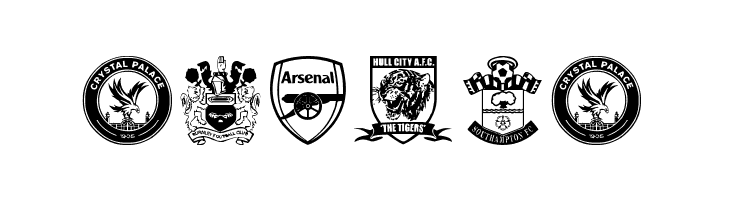
PremierLeague Font
(Millennial Solstice) Font
Font by PremiereGraphics
A playful, flowing script font with smooth, connected strokes and a handwritten feel.
Fulbo-Premier Font
Font by
AlejoBergmann
A bold, rounded font with a strong, uniform appearance.
Premi Font
A modern, thin, and geometric font with art deco influences.
Gagaille premiere Font
A decorative, hand-drawn style font with intricate, textured lines.
Goth Stencil 2 Font
Font by
JuanCasco
A bold, gothic-inspired stencil font with sharp, angular lines and a medieval flair.
Romance Fatal Goth Premium Font
Font by
JuanCasco
An ornate Gothic-inspired font with bold, angular lines and intricate flourishes.
Jaime Blues Font
Font by PremiereGraphics
A bold, handwritten font with a dynamic and expressive style.
Premier Sans Font
A bold, modern sans-serif font with geometric influences, ideal for headlines.
premiership Font
Font by Bartek Nowak - www.nowak.tv/fontoholic/
No valid font is present; the image consists of football club logos and symbols.
Premier League Font
A bold, geometric sans-serif font with clean, modern lines.
PremierSans Font
A modern, geometric sans-serif font with uniform strokes and excellent readability.
Kremlin Premier Font
A serif font with sharp serifs and elegant curves, blending traditional and modern elements.
Film Premieres Font
Font by Woodcutter
A bold, dotted display font with a vintage marquee style.
[ Wild Flower ] Font
Font by PremiereGraphics
A playful, handwritten script font with elegant loops and smooth flow.
Jumper^ Font
Font by PremiereGraphics
A distressed, brush-style script font with a rugged, artistic appearance.
CalmWaters Font
Font by PremiereGraphics
A bold, hand-drawn font with a playful and informal style.
Sh?ken Font
Font by PremiereGraphics
Bold, casual handwritten script font.
Barchella_Drumal Font
A modern, elegant font with elongated letterforms and sharp edges.
PremiumDarkSoul Font